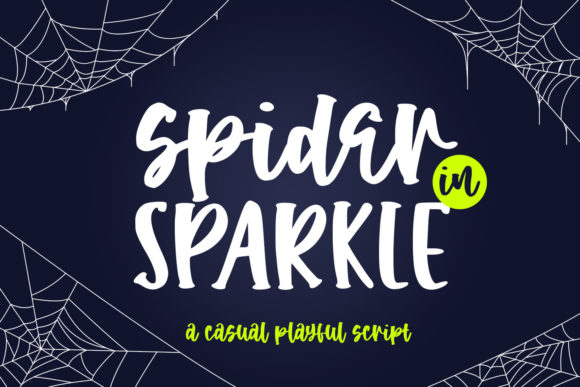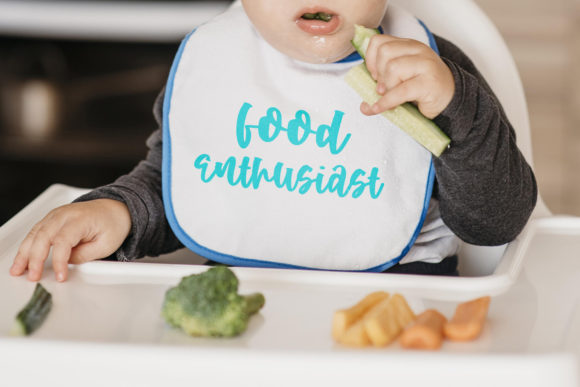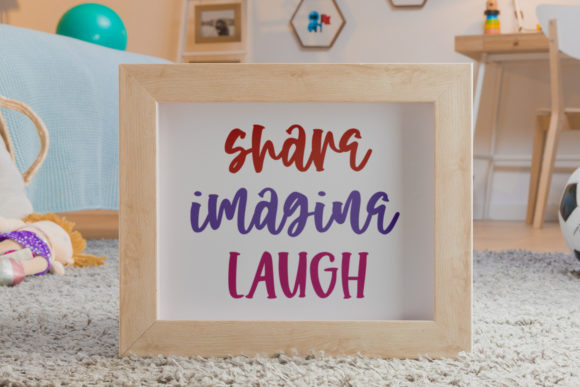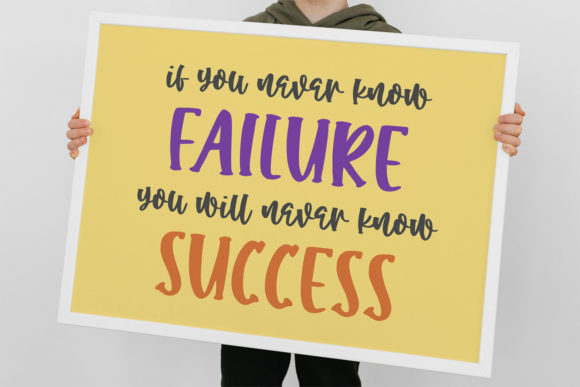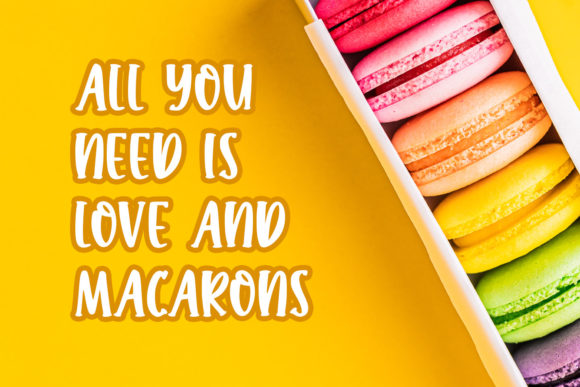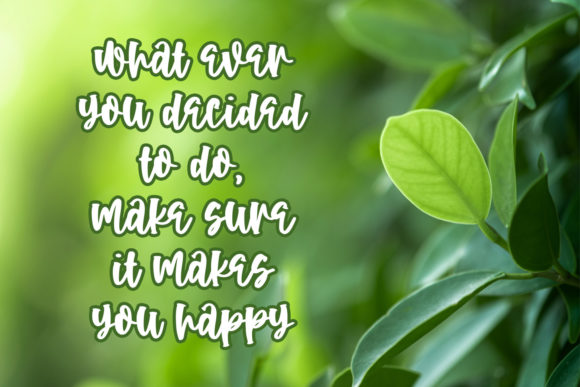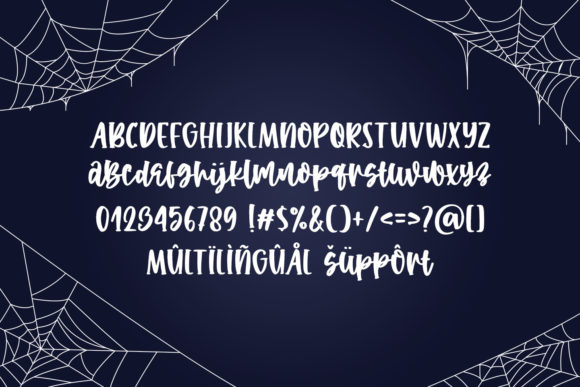
Spider in Sparkle Font
About Spider in Sparkle Font
Spider in Sparkle is a cool, casual and playful handwritten font. No matter the topic, this font will be an incredible asset to your fonts’ library, as it has the potential to elevate any creation.